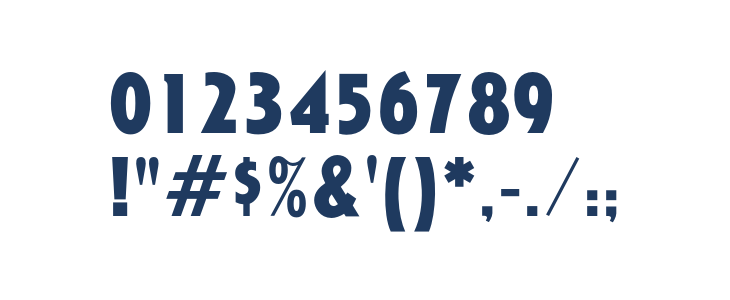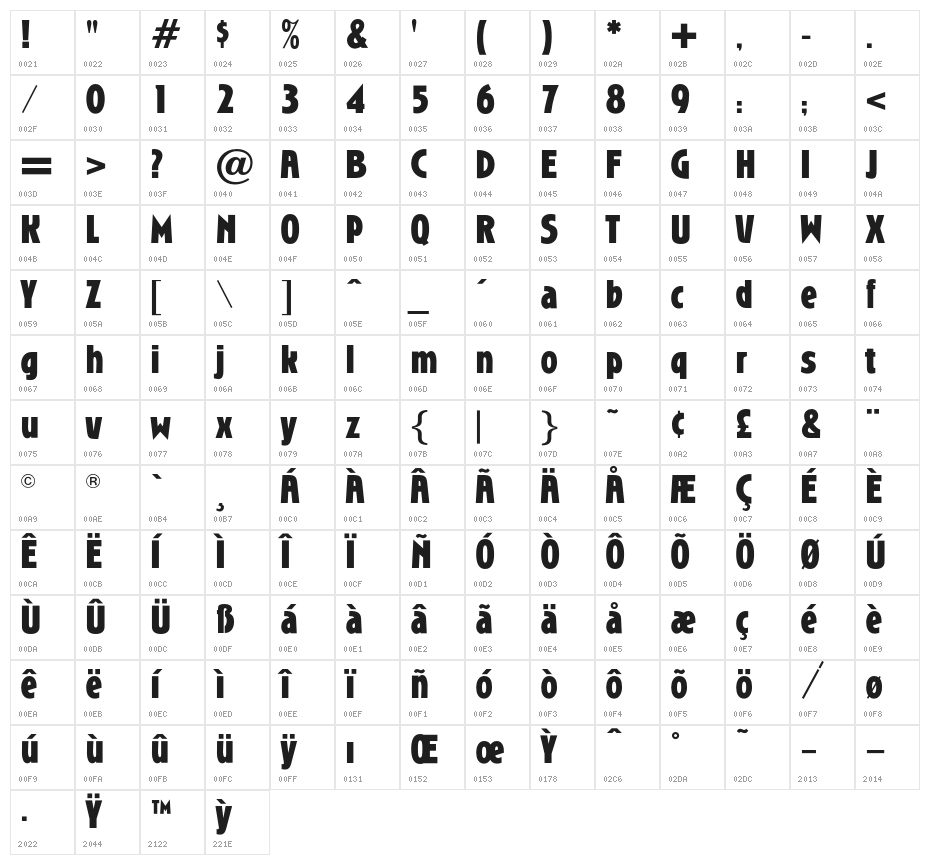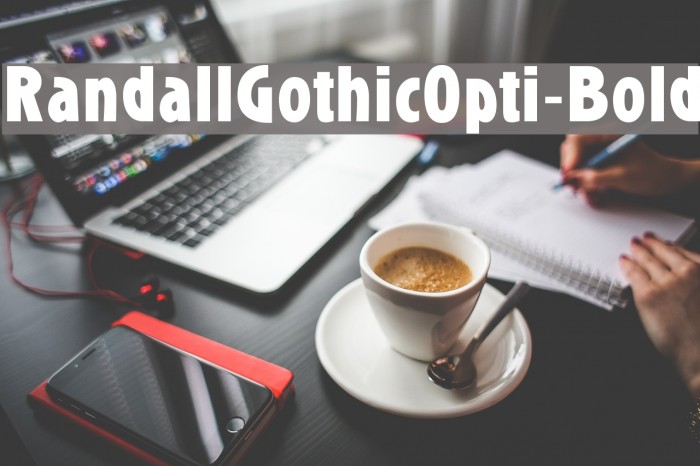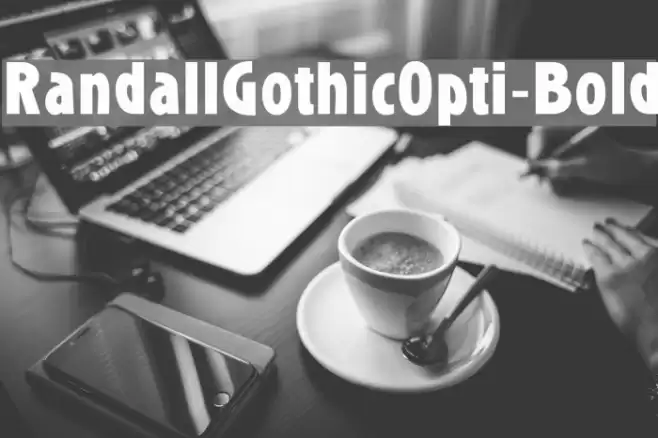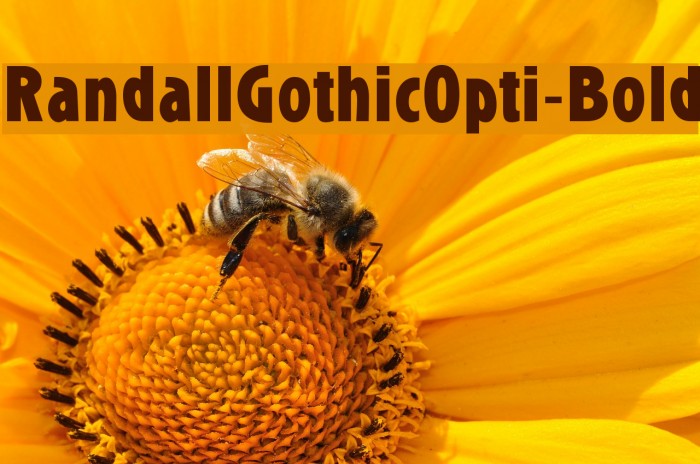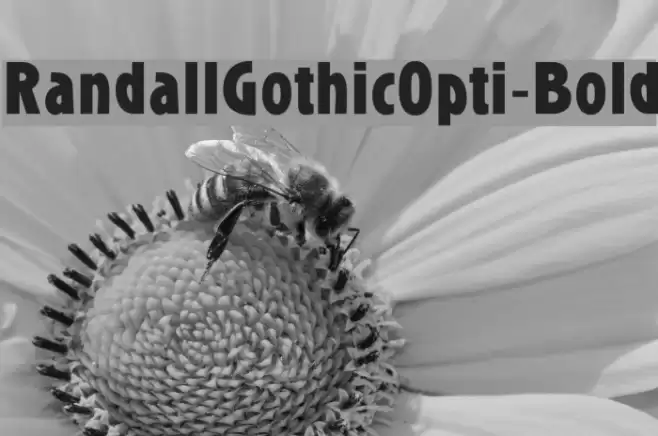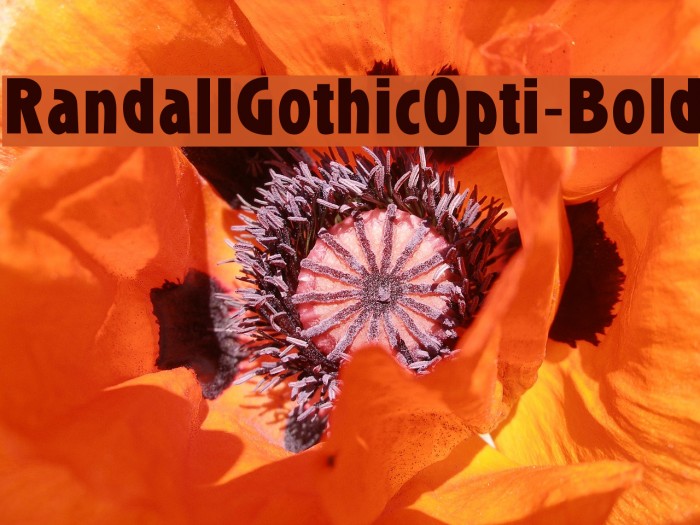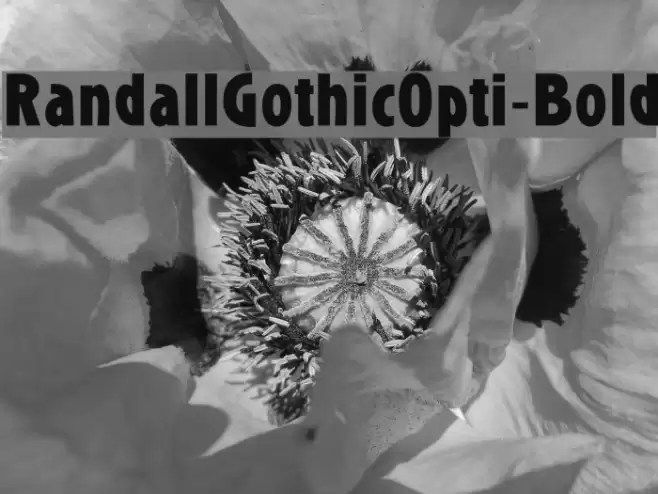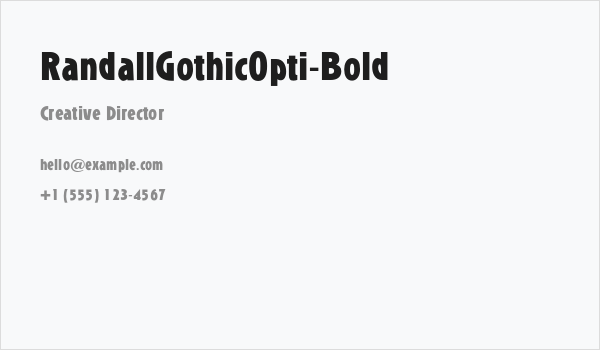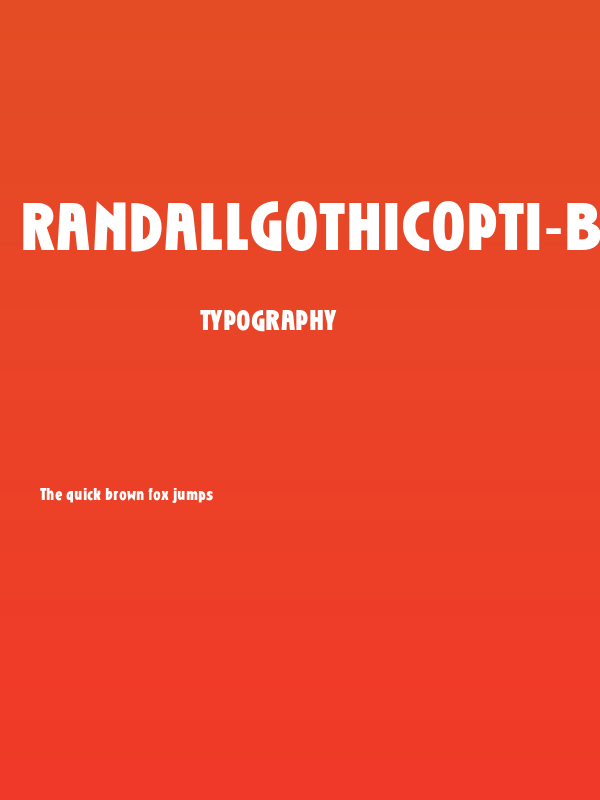
RandallGothicOpti-Bold Font
RandallGothicOpti-Bold Description
This bold and impactful font features thick, uniform strokes that convey strength and clarity. The characters are well-defined with a slightly condensed appearance, making them ideal for attention-grabbing headlines. The uppercase letters are particularly striking, while the lowercase letters maintain a consistent style that complements the overall design. The numerals are bold and easy to read, and the special characters are distinct and versatile. This font's robust nature makes it suitable for a variety of design projects that require a strong visual presence.